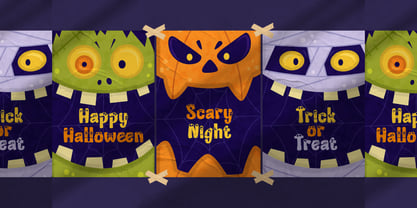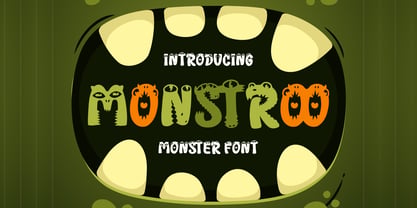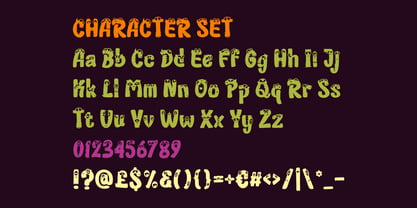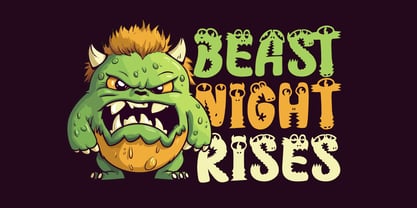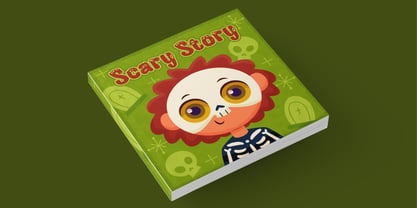
Monstroo
Die Schriftfamilie Monstroo wurde von Yesie Erma Yunita entworfen und von Shanaf veröffentlicht. Monstroo enthält 1 Stile. Mehr über diese Familie
Monstroo Funny Monster Display Font brings a lively mix of quirky shapes and bold character forms. Every letter features monster-inspired details that feel organic, uneven, and expressive. The strokes are thick, rounded, and irregular, giving the font a strong silhouette that still feels friendly. Each glyph includes playful accents like eyes, claws, bites, or scaled textures, creating memorable letterforms that stand out instantly. The overall height is medium, while the width varies slightly to enhance its fun rhythm. This makes the font energetic, dynamic, and perfect for designs that need humor, personality, and kid-friendly appeal. Because of its illustrative look, Monstroo Funny Monster Display Font fits creators who want characters inside their typography. This font shines in creative branding, playful logos, event titles, children’s books, cartoon covers, stickers, posters, and party invitations. It adds character to product packaging, school materials, crafting projects, and social media graphics. The irregular shapes make each word look alive and expressive without extra decoration. Designers can use it for Halloween themes, kids’ merchandise, character-based marketing, movie titles, or educational materials. With its bold and easy-to-spot style, the font delivers instant visual impact for any fun concept. Monstroo Funny Monster Display Font ensures every message feels vibrant, adventurous, and full of charm.